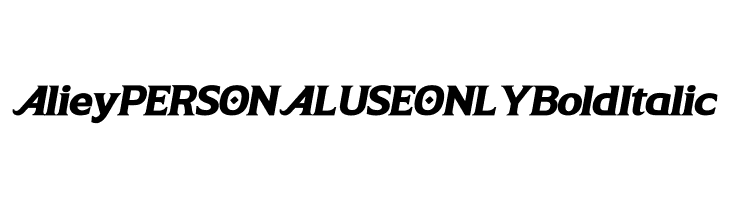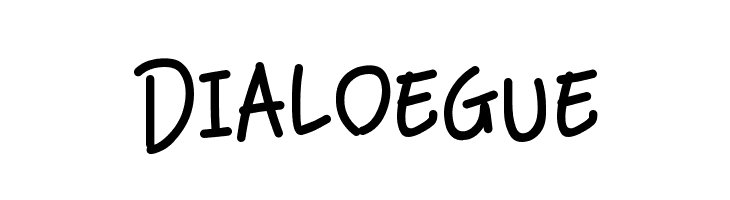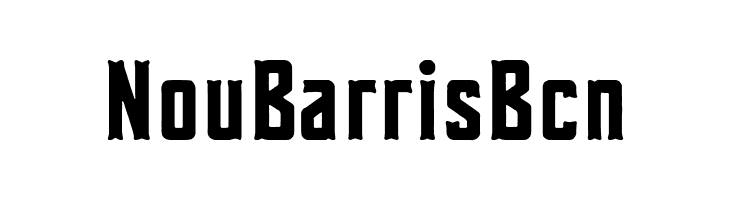
Chaque police phare se distingue par équilibre, lisibilité et polyvalence. Vous trouverez des sans‑serifs modernes, des scripts élégantes, des serifs vintage et des displays minimalistes.
A modern, italic sans-serif font with a sleek and dynamic style.
A bold, angular font with a geometric and dynamic style.
A modern, expanded italic font with a sleek and dynamic style.
A hollow, inverse font with bold outlines and a geometric, modern style.
A bold, playful handwritten font with thick, uneven strokes.
A bold, condensed italic font with a dynamic and modern style.
A bold, italic font with a modern, dynamic style and angular design.
A bold, slanted font with thick strokes for strong visual impact.
A playful, handwritten font with smooth, flowing lines and a casual style.
A bold, geometric font with rounded shapes and a modern, playful style.
A flowing, cursive font with elegant, sweeping lines and sophisticated flourishes.
A graceful, handwritten script font with elegant, flowing strokes.
A playful handwritten font with fluid, dynamic strokes and a lively aesthetic.
A playful, cursive script font with a lively, handwritten style.
An elegant script font with ornate swashes and flowing cursive style.
A modern, sleek italic font with smooth curves and a dynamic style.
A bold, angular font with a geometric and aggressive style.
A whimsical, playful font with a handwritten feel and moderate stroke thickness.
A playful and elegant script font with a handwritten style.
A playful font with child illustrations integrated into each letter.
A lively and expressive handwritten font with fluid, connected letterforms.
A playful, handwritten font with tall, narrow characters and whimsical elements.
A playful, fluid font with irregular, liquid-like shapes and dynamic strokes.
A mystical, rune-like font with sharp, angular strokes and a calligraphic style.